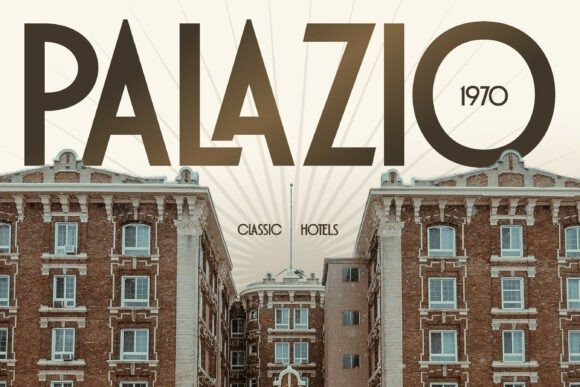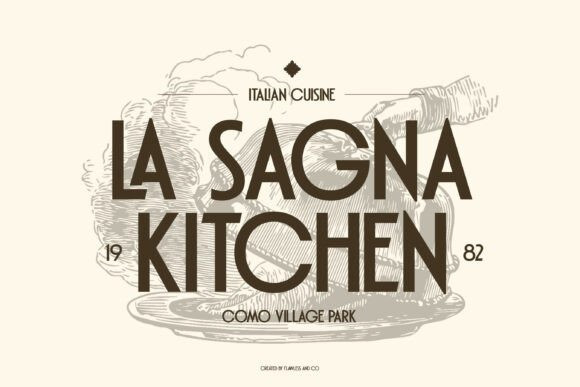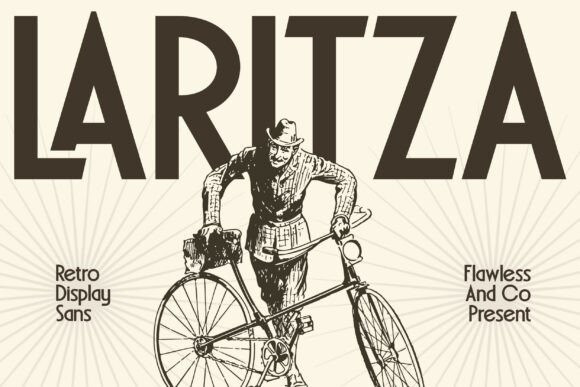
Laritza Font
Laritza Font is a bold retro display sans font inspired by classic vintage typography and timeless poster aesthetics. With strong letterforms and clean geometric shapes, Laritza delivers a confident and nostalgic look while remaining modern and highly readable.